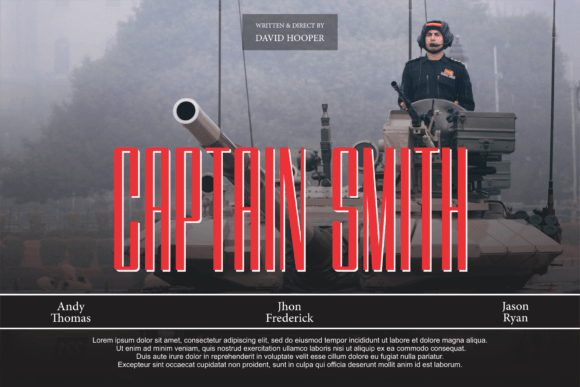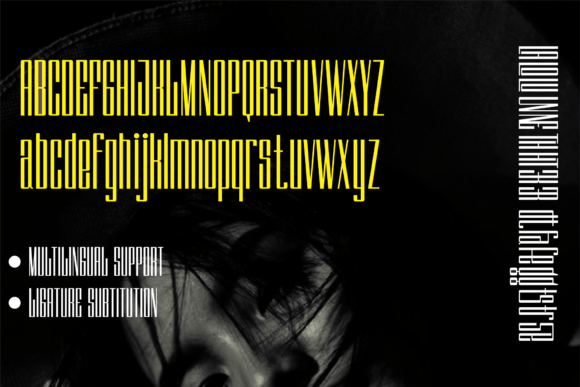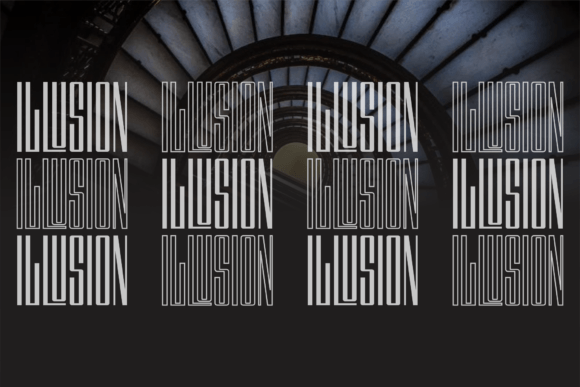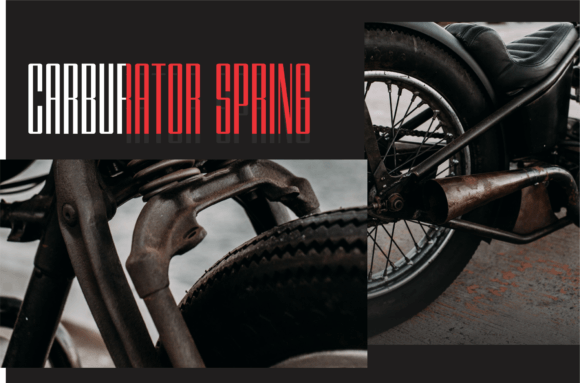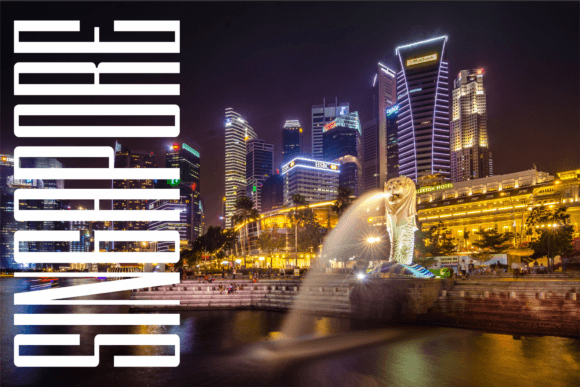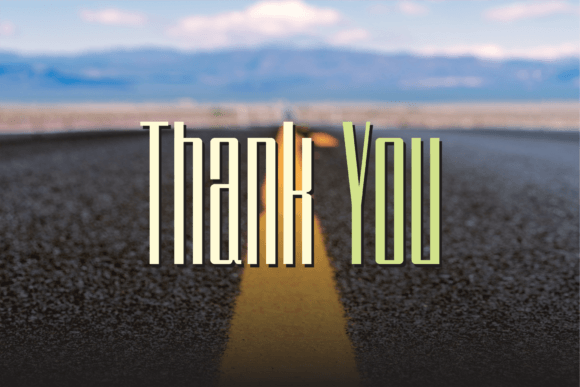
Unleash Your Creativity with Desire Black Font
Are you a designer or crafter looking for a modern and bold font to elevate your creative projects? Look no further than the Desire Black Font. This stunning condensed sans serif font is designed to make a statement, with bold contrasts that will add a touch of sophistication and elegance to any design.
What Makes Desire Black Font So Special?
Desire Black is not just any ordinary font. Its modern design and bold contrasts make it perfect for a wide range of creative projects, from branding and advertising to packaging and digital media. The font’s condensed style allows for easy reading and maximum impact, making it ideal for headlines, titles, and short texts.
One of the standout features of Desire Black Font is its PUA (Private Use Area) encoding. This means that you can access all the glyphs and ligatures with ease, giving you complete creative control over your design. With PUA encoding, you can easily insert special characters, symbols, and swashes into your text, allowing you to create unique and eye-catching designs that stand out from the crowd.
Desire Black Font is incredibly versatile, making it perfect for a wide range of creative projects. Here are just a few ideas to get you started:
• Branding and Logo Design: Use Desire Black Font to create bold and memorable logos that make a lasting impression.
• Advertising and Marketing: Add a touch of sophistication and elegance to your ad campaigns with this stunning font.
• Packaging Design: Make your product stand out on store shelves with eye-catching packaging designs that feature Desire Black Font.
• Digital Media: Use Desire Black Font to add a professional touch to your website, social media graphics, and digital marketing materials.
Why Choose Desire Black Font?
With so many fonts to choose from, why should you choose Desire Black Font? Here are just a few reasons:
• Unique and Modern Design: Desire Black Font features a unique and modern design that will set your creative projects apart from the crowd.
• High-Quality and Legible: This font is designed to be highly legible, even at small sizes, making it perfect for a wide range of applications.
• Easy to Use: With PUA encoding, you can easily access all the glyphs and ligatures, making it easy to create stunning designs.
Tips for Using Desire Black Font
Here are a few tips for getting the most out of Desire Black Font:
• Use it Boldly: Desire Black Font is designed to make a statement, so don’t be afraid to use it boldly and creatively.
• Experiment with Colors: Try pairing Desire Black Font with different colors and textures to create unique and eye-catching designs.
• Mix and Match: Combine Desire Black Font with other fonts and design elements to create visually interesting and dynamic designs.
Desire Black Font is a powerful and versatile font that can elevate any creative project. With its modern design, bold contrasts, and PUA encoding, it’s the perfect choice for designers and crafters looking to make a statement. So why wait? Add Desire Black Font to your creative toolkit today and get ready to unleash your creativity!